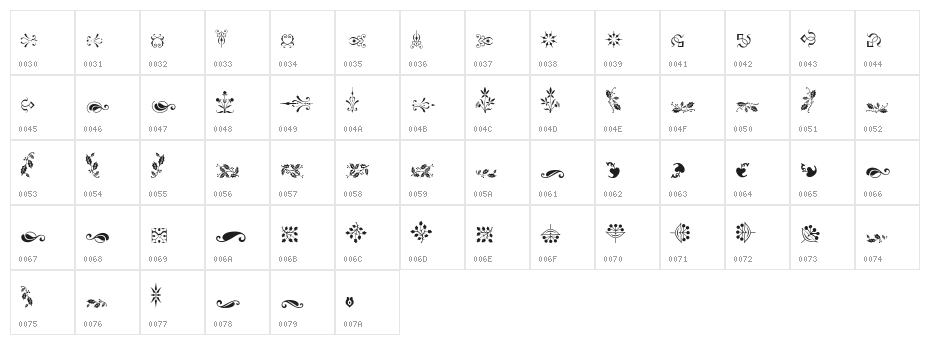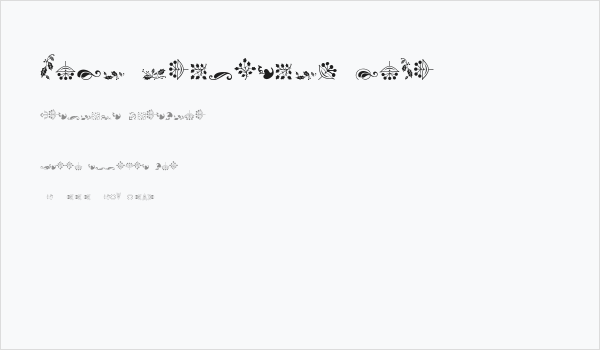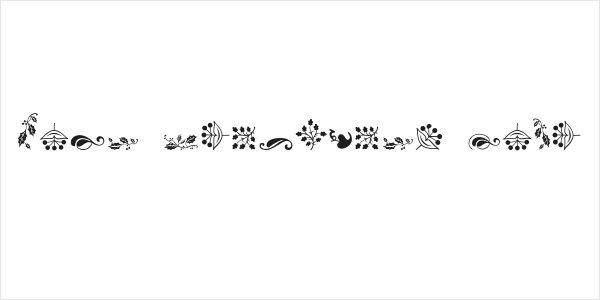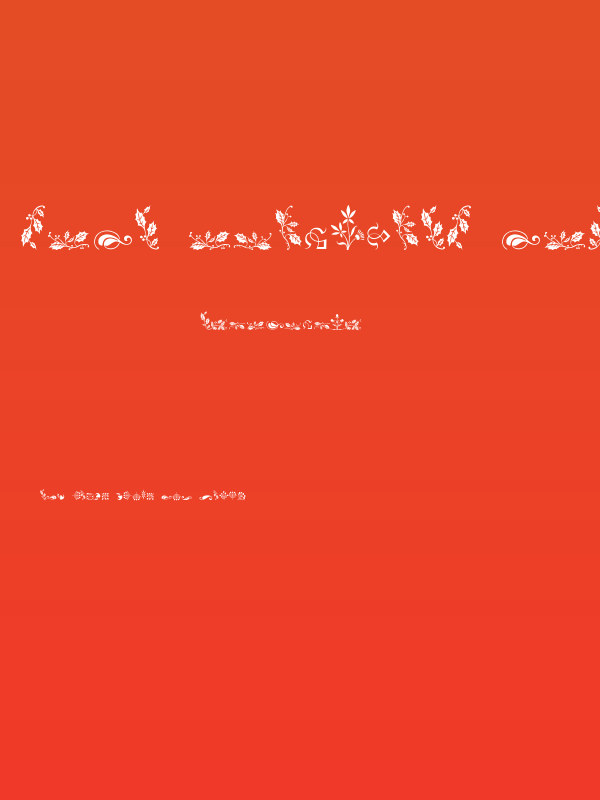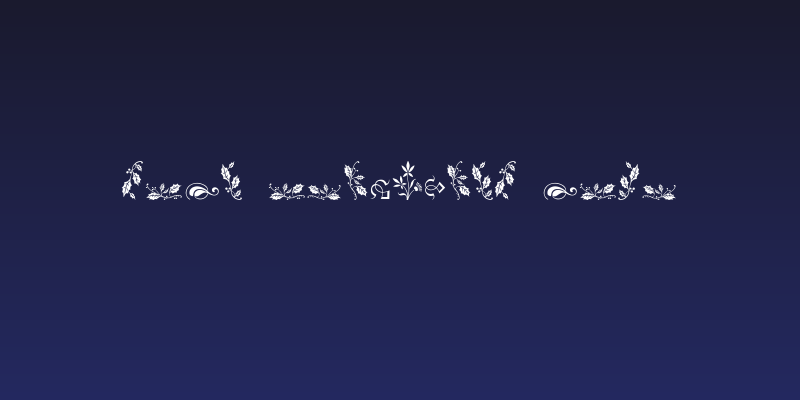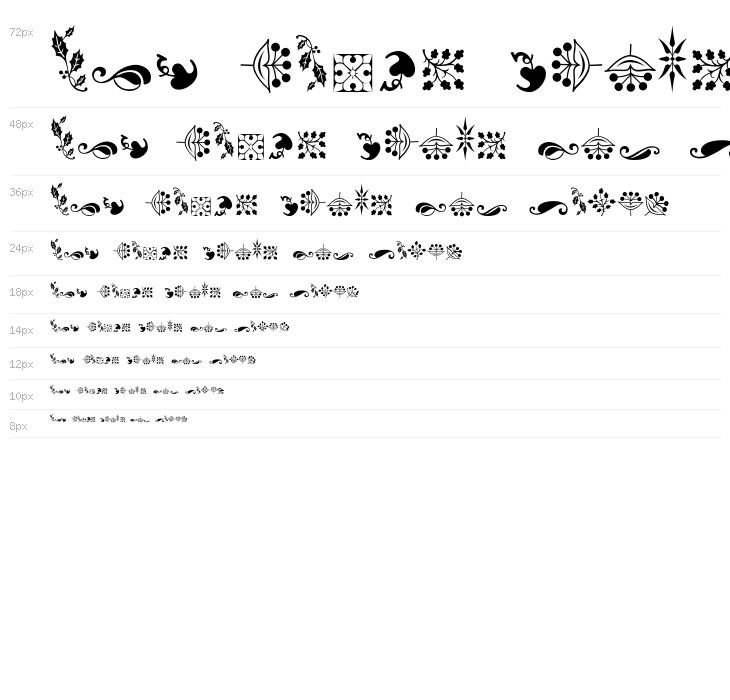
Soft Ornaments Four Font
Soft Ornaments Four Description
A decorative collection of ornamental glyphs featuring floral, leafy, and abstract motifs with intricate swirls and symmetrical designs. The elements are highly stylized, with varying line thickness and detailed embellishments, suitable for borders, dividers, or embellishments in print and digital media.
| Overall Style | Vintage, Decorative |
| Use Case | Borders, Dividers, Embellishments, Decorative accents |
| Proposed Projects | Wedding invitations, certificates, book covers, vintage posters, decorative borders, and digital scrapbooking. |